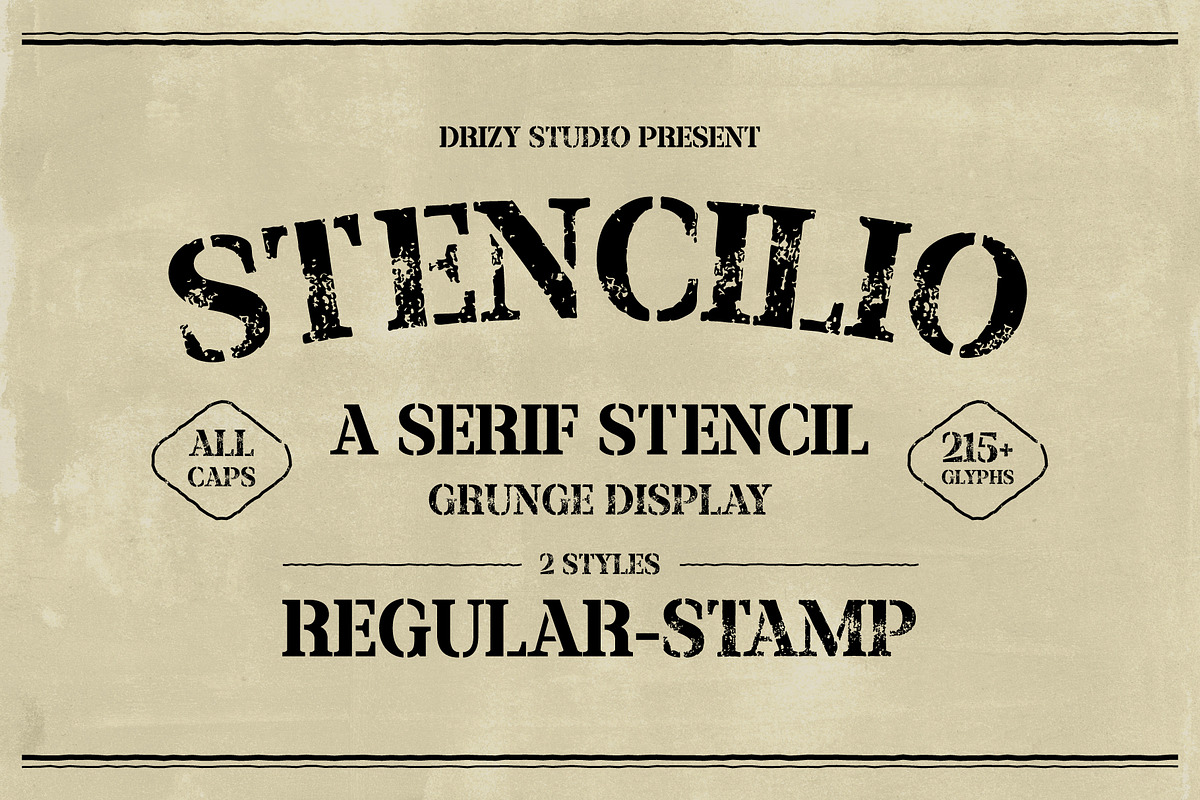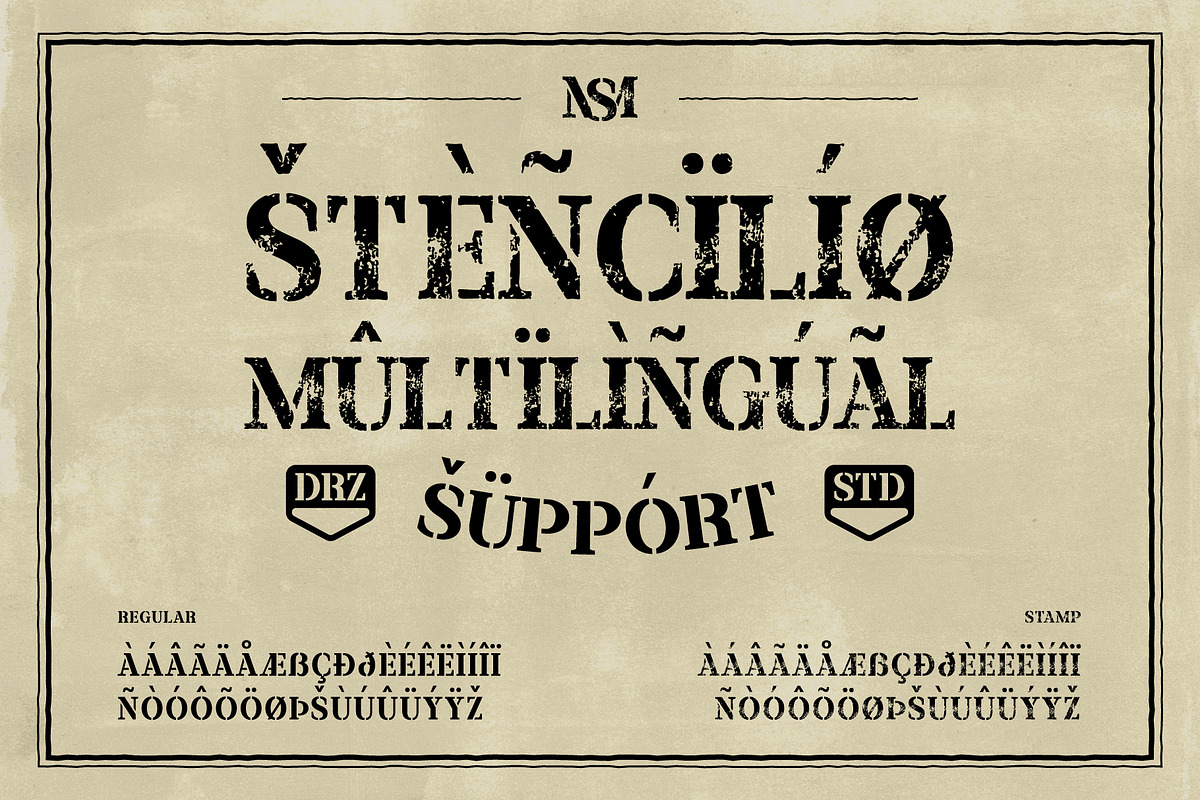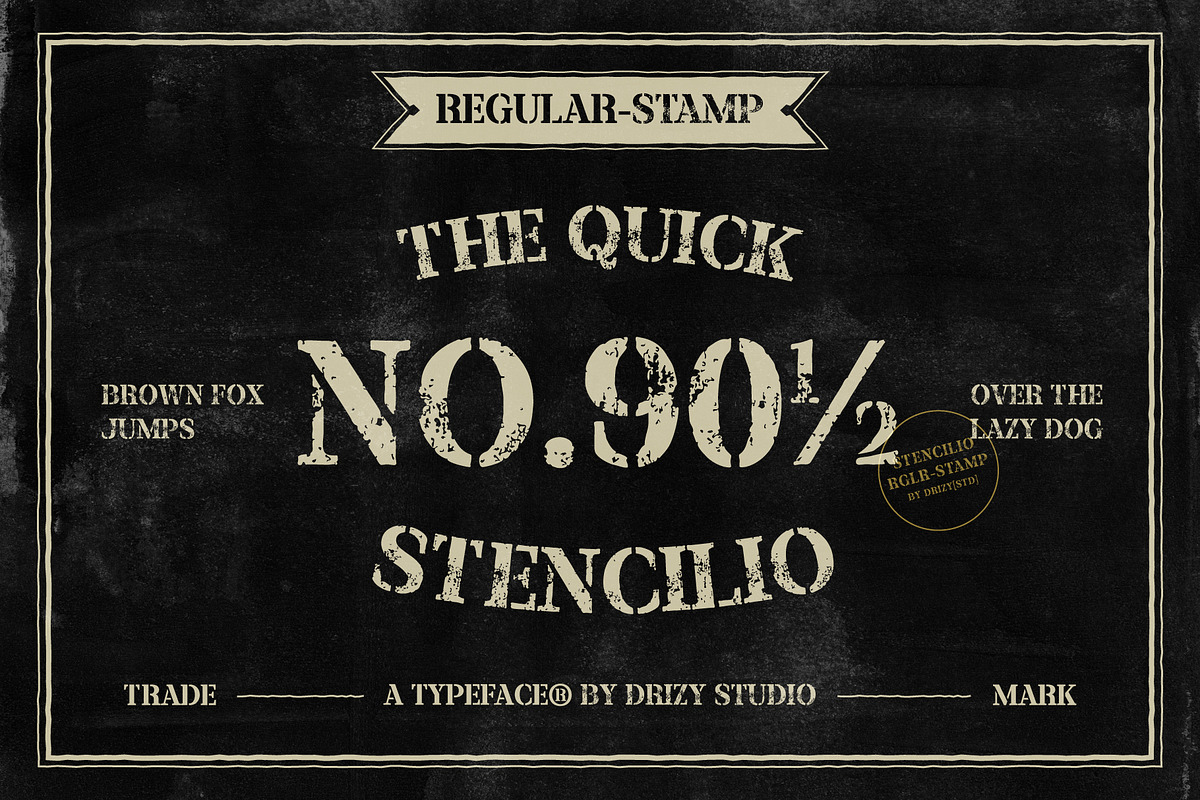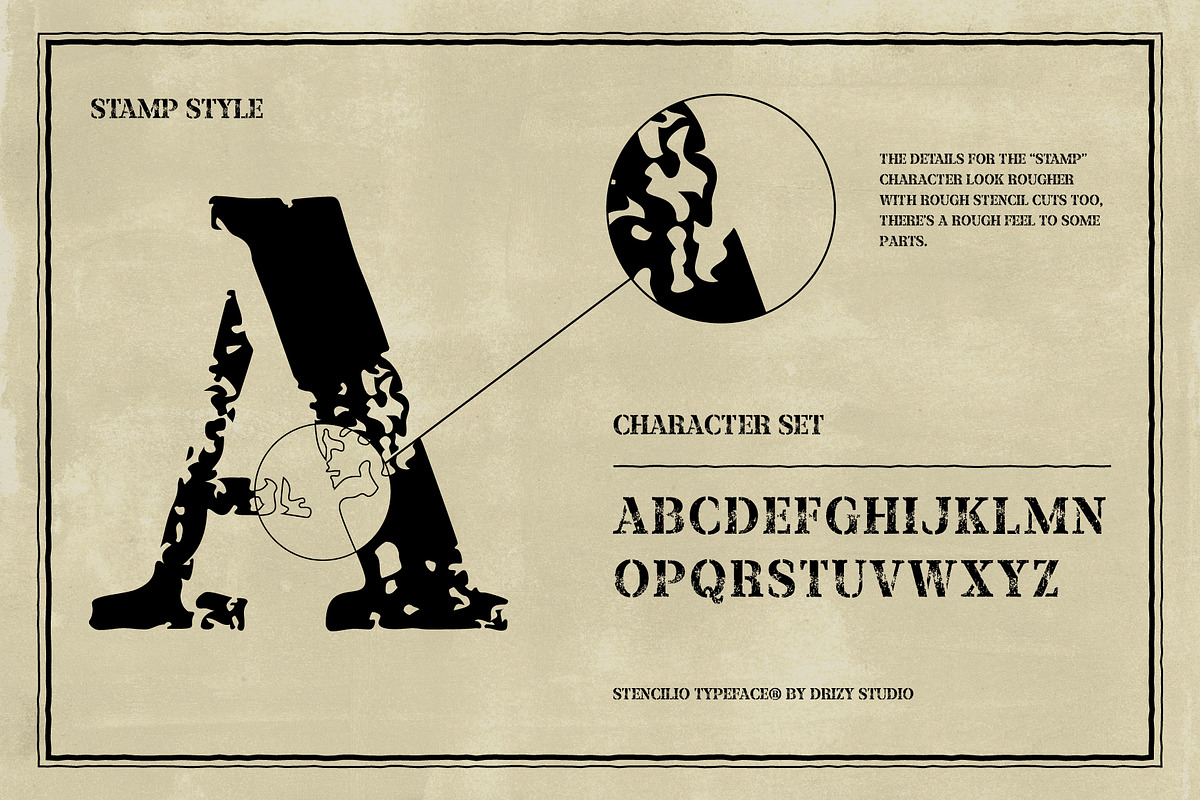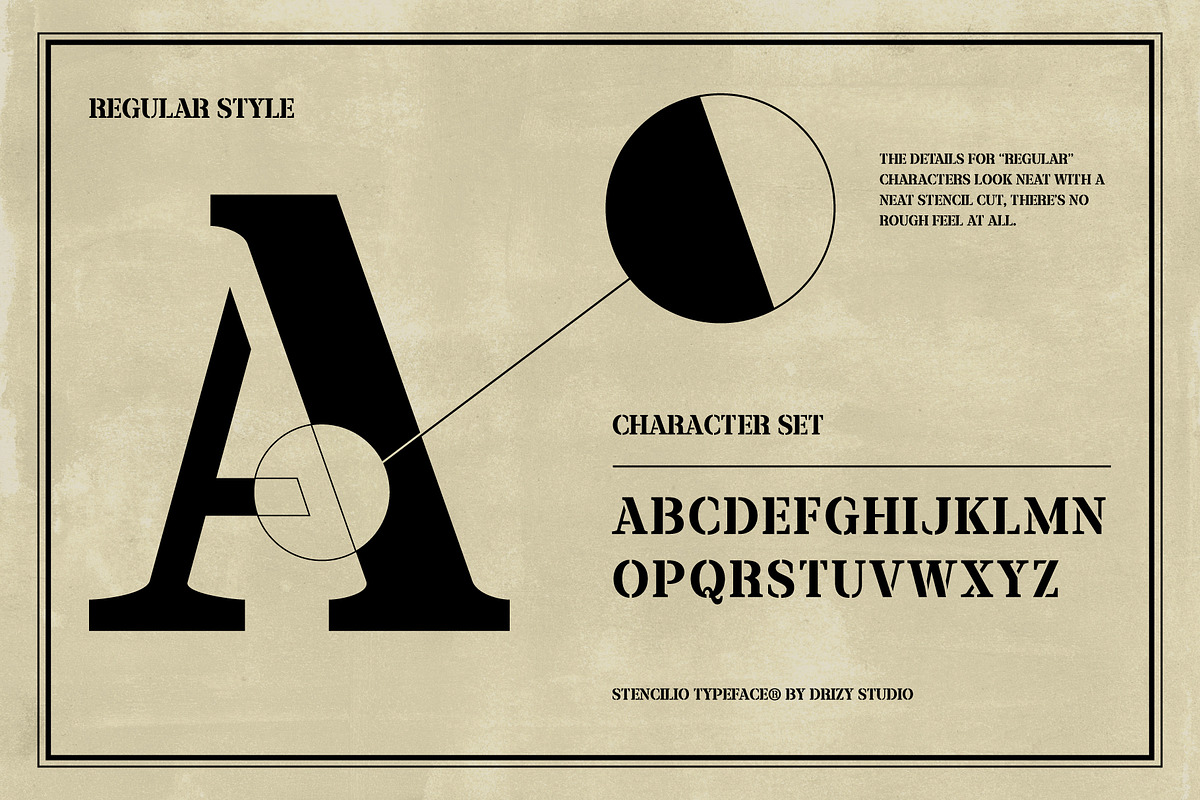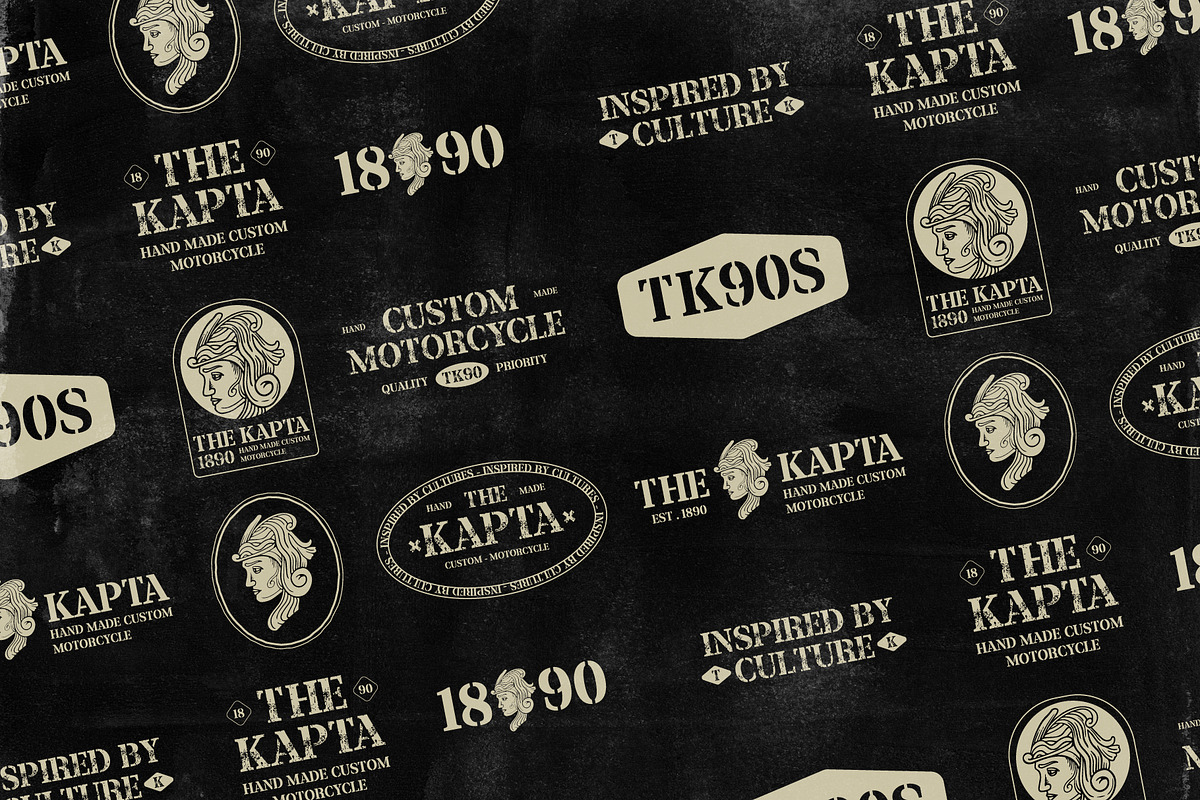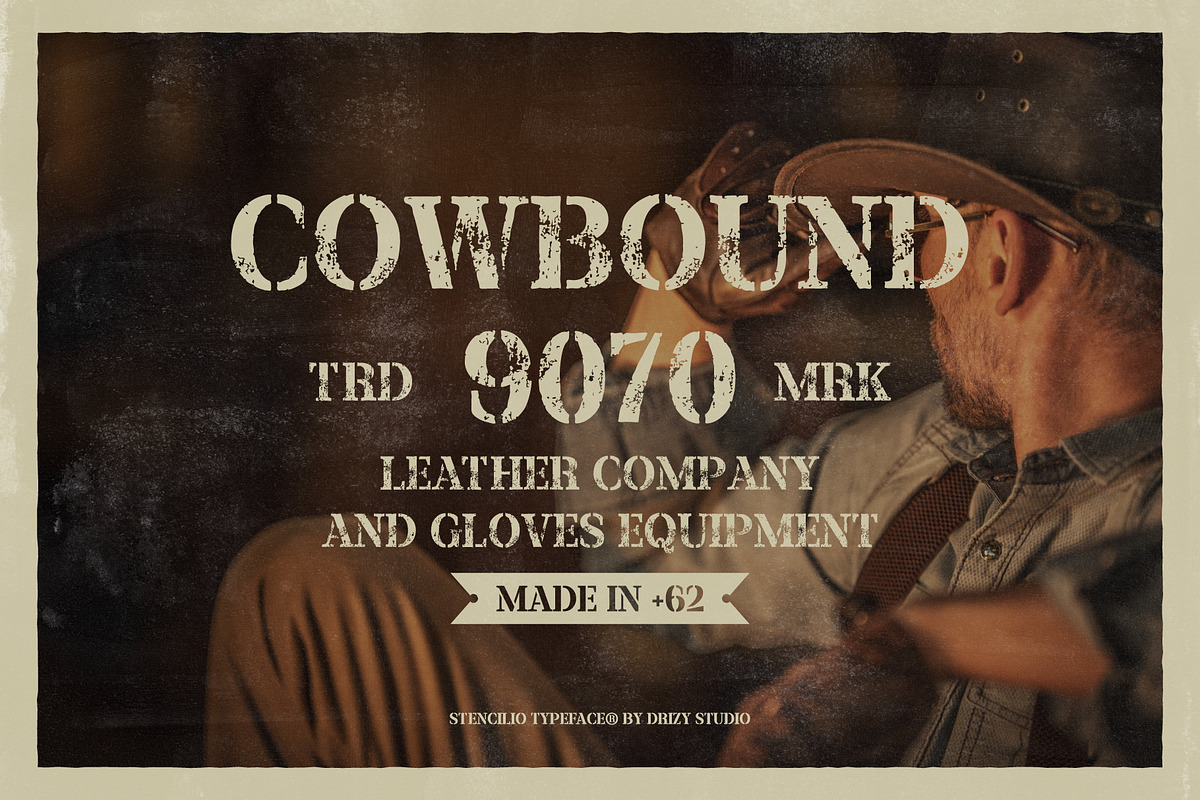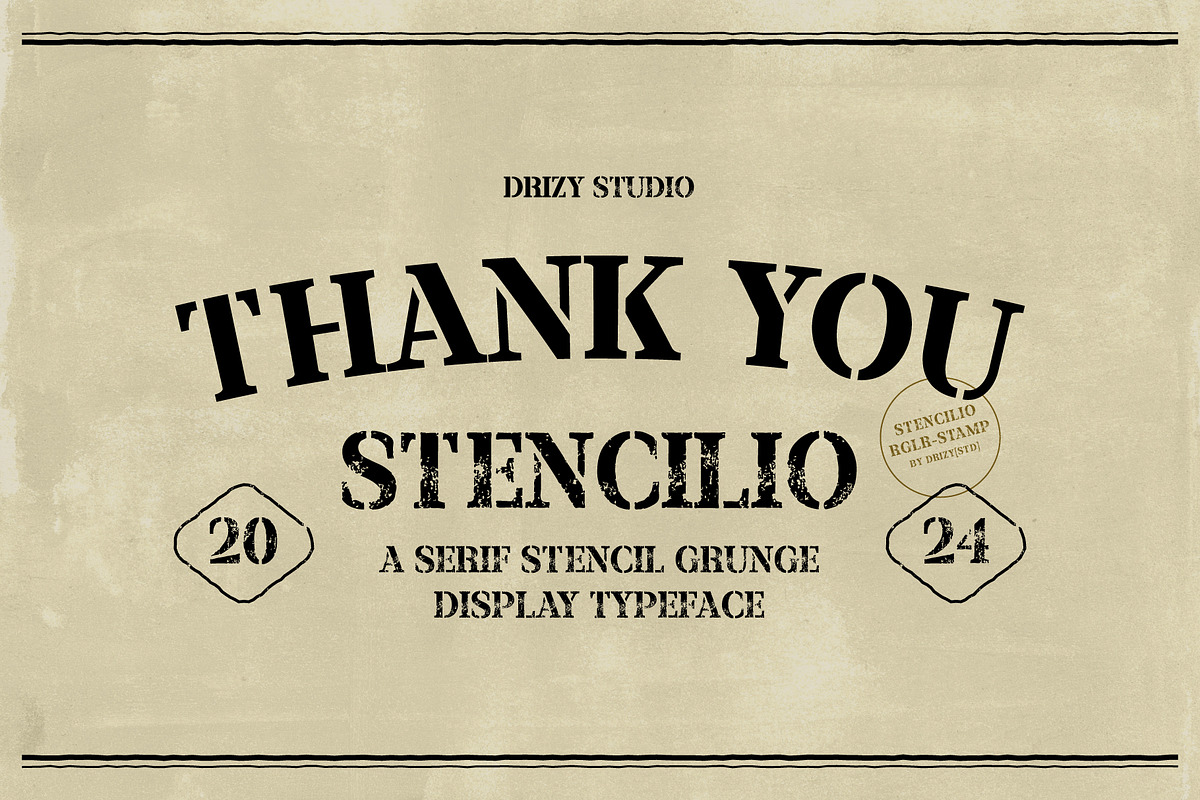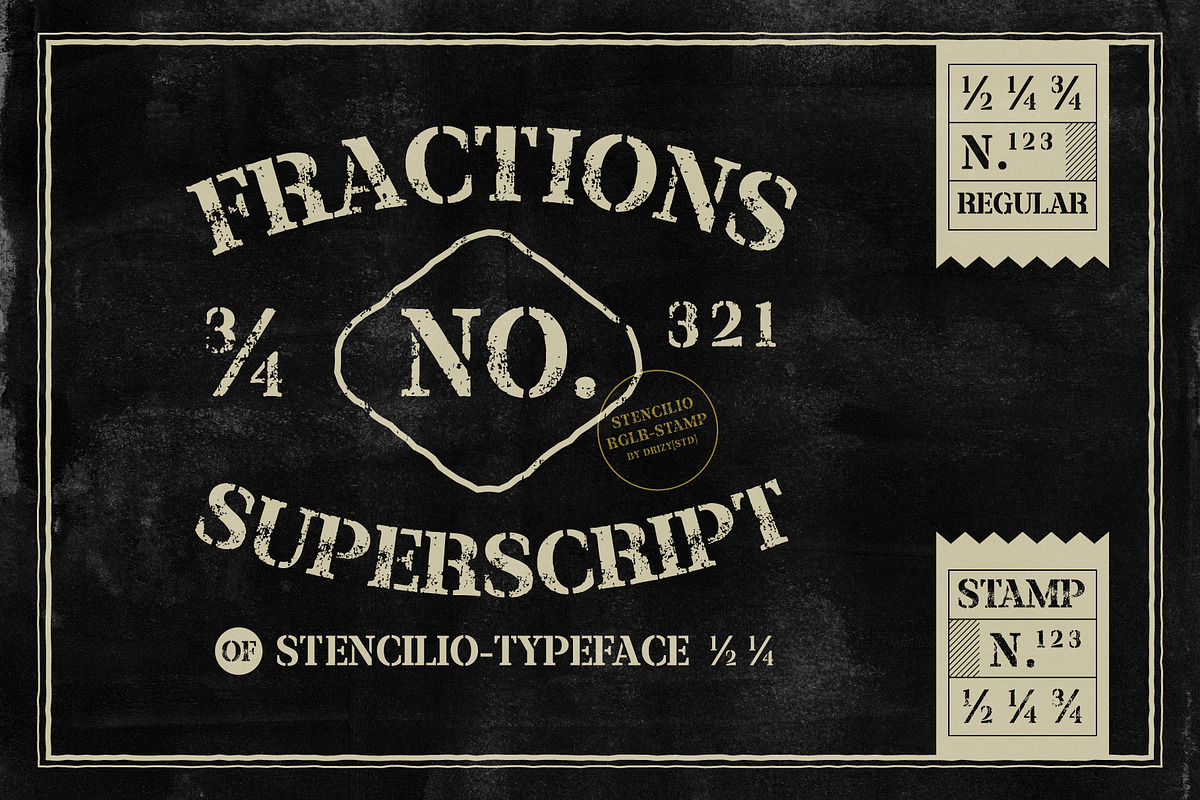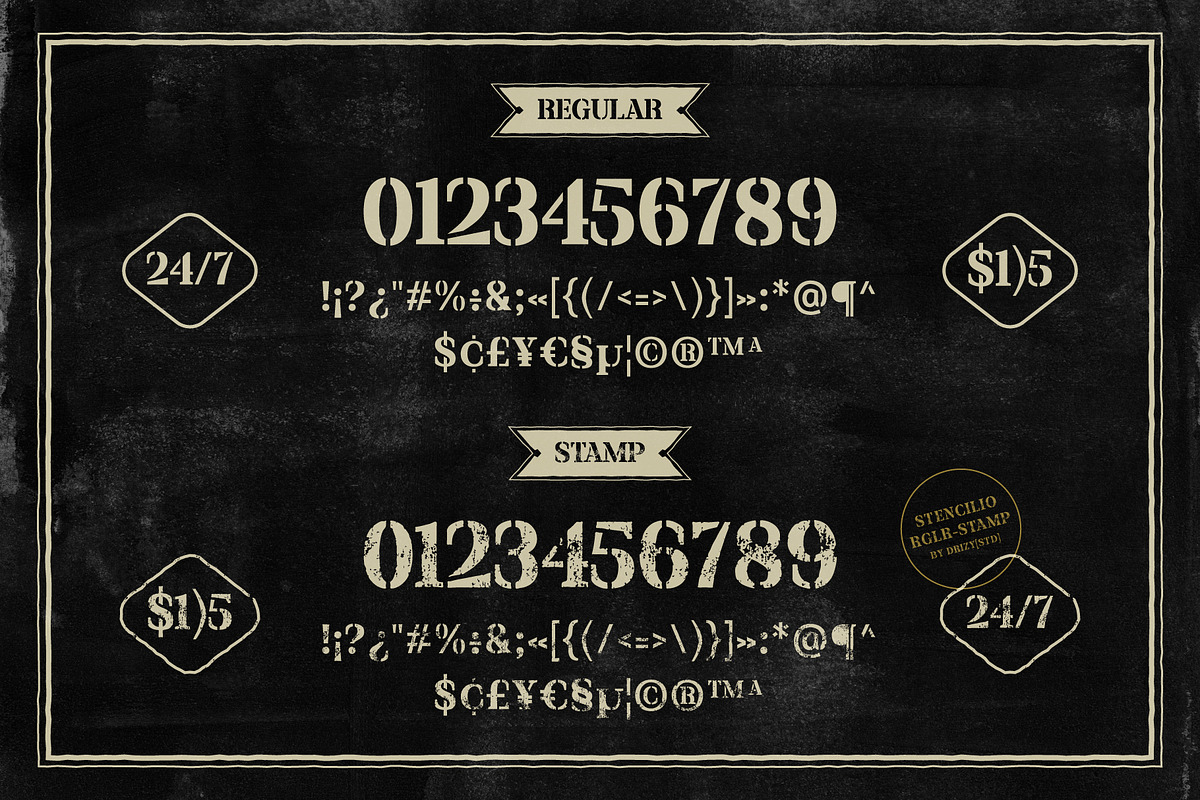
Stencilio – Serif Stencil Grunge
Stencilio – Serif Stencil Grunge Font
Stencilio is emulate the appearance of characters stamped onto a surface using rubber stamp. This font style features a rugged and distressed look, reminiscent of traditional stamping techniques. With its unique texture and irregularities, Stencilio adds character and authenticity to design projects, evoking a sense of handcrafted charm.
Stencilio features:
- Character Set (All Caps)
- Punctuation & Numbers
- Variable : Regular & Stamp